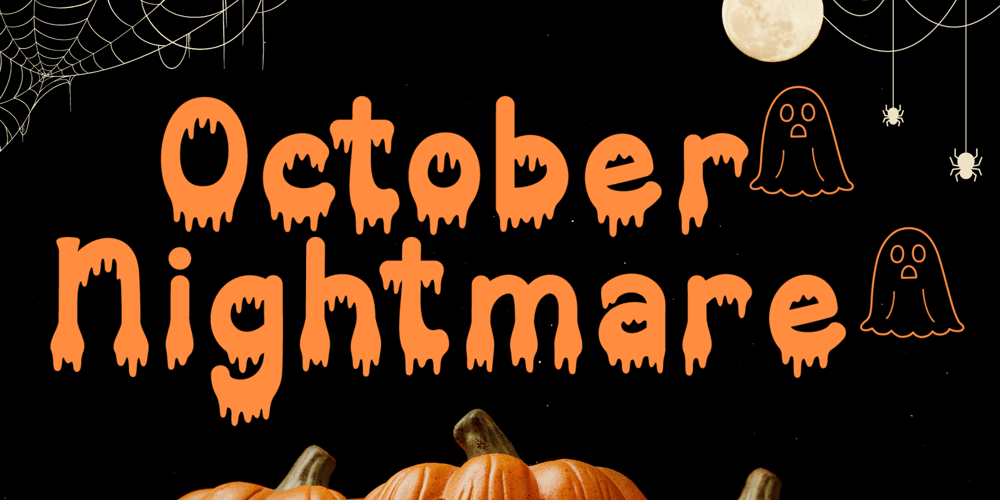
October Nightmare
October Nightmare font
October Nightmare Font Family was designed by Agung Eko Nugroho and published by AEN Creative Studio. October Nightmare contains 2 styles and family package options. October Nightmare Font is a captivating and spooky display font designed to perfectly encapsulate the spirit of Halloween. This display font is an ideal choice for creating chilling and eye-catching designs for Halloween-themed posters, apparel, embroidery, crafts, and other festive applications.